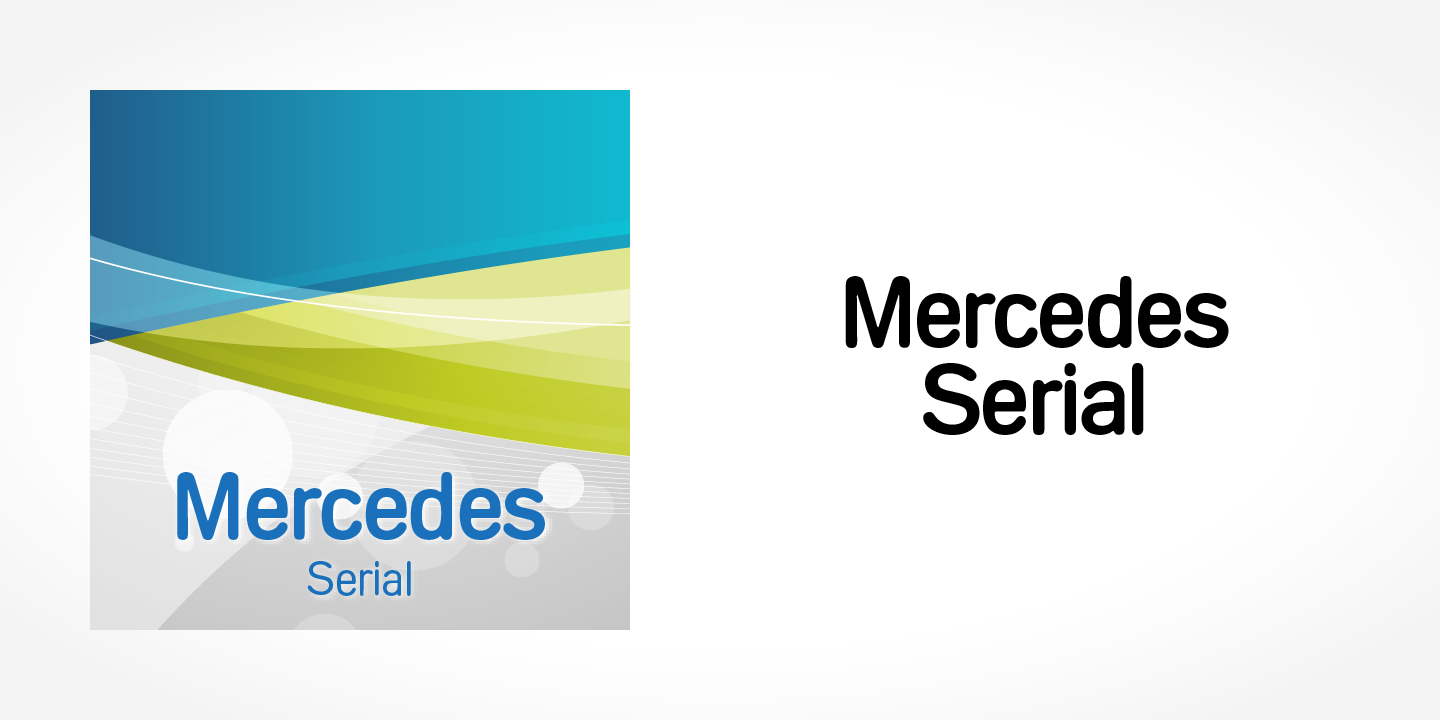
The Mercedes Serial Font is a versatile and stylish typeface perfect for a wide range of applications. Imagine it gracing the headlines of automotive magazines, adding a touch of elegance to luxury brand advertisements, or providing a sleek, professional look to corporate presentations. Its clean lines and precise structure make it ideal for branding, web design, product packaging, and even high-end editorial layouts. If you're designing a new logo, creating marketing materials, or developing a website that needs to convey sophistication and reliability, the Mercedes Serial Font will elevate your project.
What makes the Mercedes Serial Font so exciting? Its appeal lies in its inherent sense of precision and modern elegance, directly reflecting the sophisticated engineering and timeless design associated with the Mercedes-Benz brand. It projects an image of luxury, performance, and attention to detail, making it much more than just a typeface – it's a statement. This font’s clear legibility and balanced proportions ensure that your message is always communicated effectively, whether viewed on a large billboard or a small mobile screen. It provides a distinct visual identity that is both contemporary and enduring, allowing your designs to stand out with a sophisticated edge.
The Mercedes Serial Font family typically includes a comprehensive range of weights and styles to ensure maximum flexibility for designers. While specific variations can differ, you can generally expect to find options like Mercedes Serial Regular, Mercedes Serial Bold, Mercedes Serial Light, Mercedes Serial Italic, and potentially other variations such as Mercedes Serial Medium or Mercedes Serial Black. These different weights allow for hierarchical organization within your text, letting you emphasize certain elements while maintaining a cohesive visual theme. This extensive family ensures that whether you need a subtle touch or a bold statement, the Mercedes Serial Font provides the perfect option. For your projects, remember to consider the Mercedes Serial Font Free Download option for initial testing, then secure the necessary license for commercial applications.